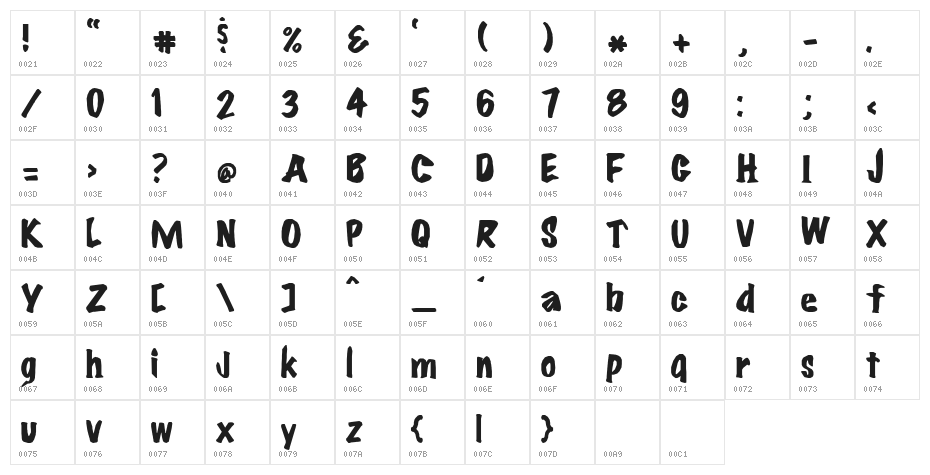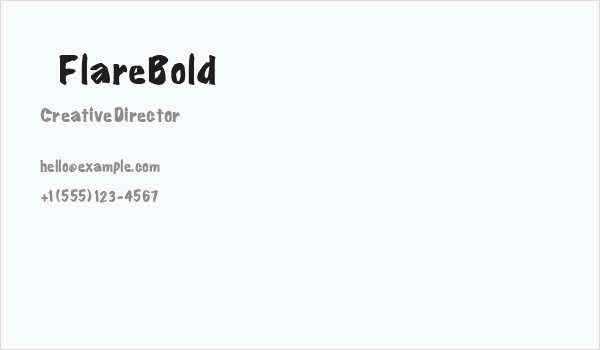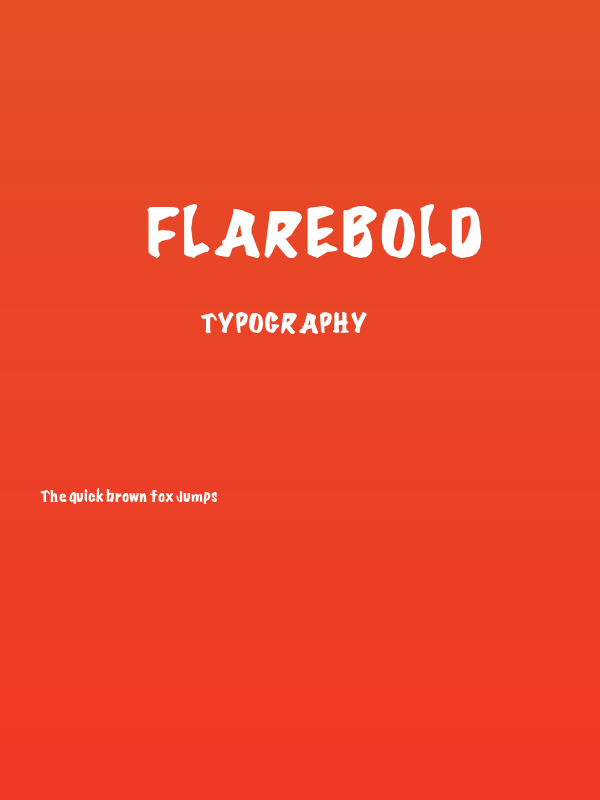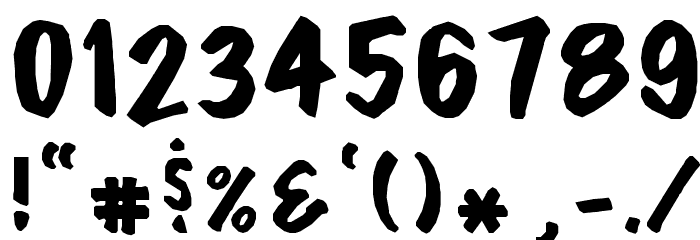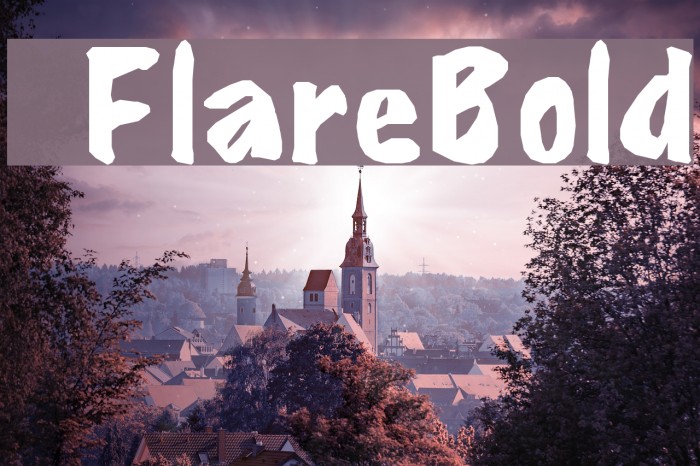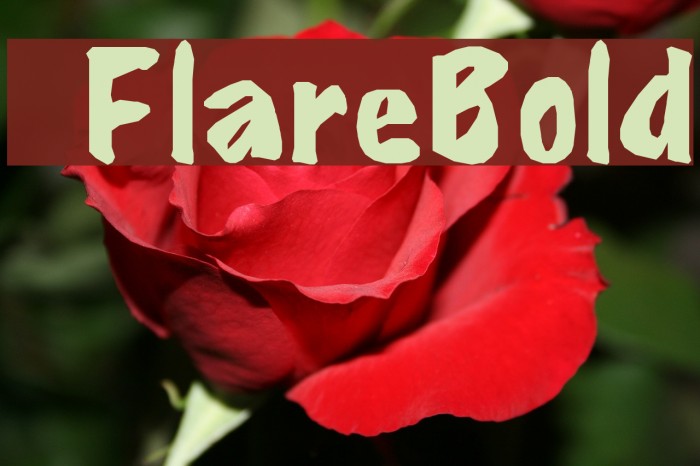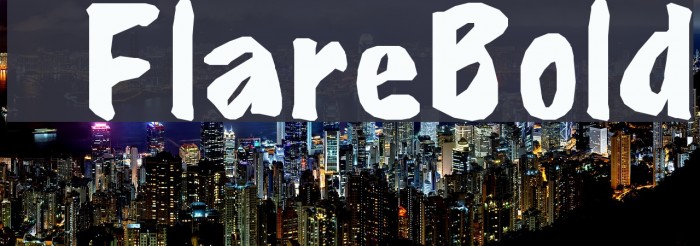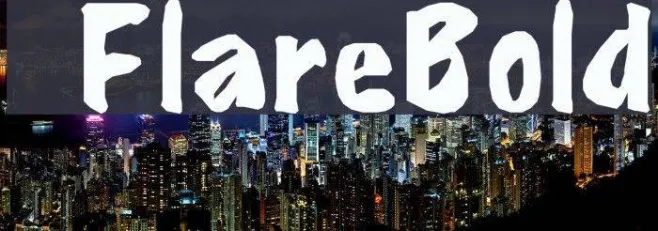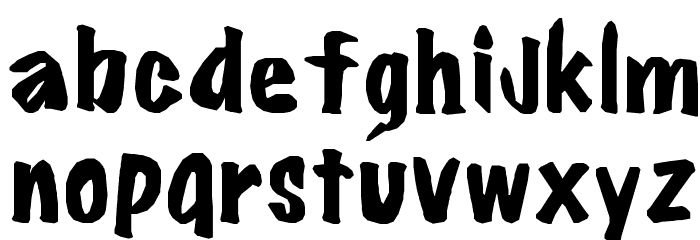
©FlareBold Description
This font features a bold, dynamic style with a hand-drawn appearance, characterized by its thick strokes and playful, irregular shapes. The uppercase letters exhibit a strong presence with slightly exaggerated curves and angles, while the lowercase letters maintain a consistent flow, enhancing readability. The numbers are robust and match the boldness of the alphabet, ensuring uniformity across different uses. Special characters are creatively designed, adding to the font's unique personality. Its overall aesthetic is both energetic and approachable, making it suitable for a variety of creative applications.
| Proposed Projects | Ideal for posters, branding, packaging, and any project requiring a lively, eye-catching typeface. |